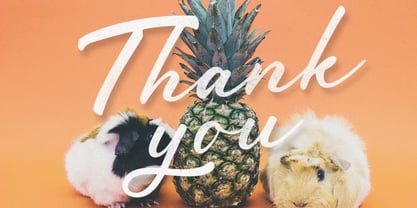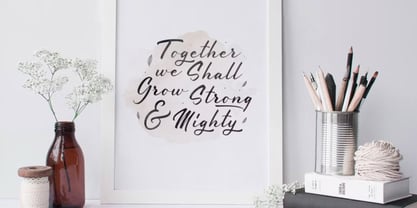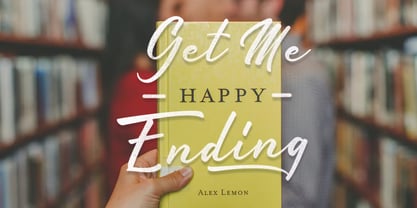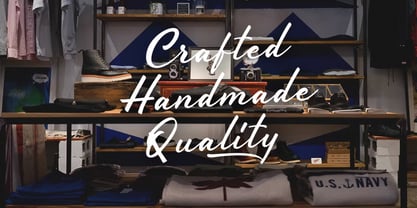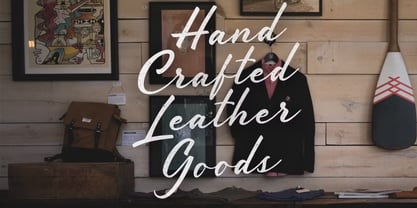
Society
by Maghrib Type
The Society Font Family was designed by Rizky Setyaludin and published by Maghrib Type. Society contains 1 styles.
Elevate your designs with The Society, a premium hand-drawn typeface that strikes the perfect balance between raw authenticity and sophisticated elegance. Inspired by traditional brush lettering and modern lifestyle branding, this font captures the essence of "crafted quality" in every stroke. The Society features a natural, fluid flow with subtle texture variations that mimic real ink on paper. Its rhythmic weight and organic ligatures make it an ideal choice for brands that want to convey a sense of heritage, craftsmanship, and personal touch. Whether you are designing a high-end leather goods brand, a boutique storefront, or a rugged outdoor lifestyle magazine, The Society provides a versatile aesthetic that feels both nostalgic and contemporary. Key Features: Authentic Texture: Carefully preserved hand-drawn edges for a realistic look. Versatile Application: Perfect for logos, apparel design, social media quotes, packaging, and editorial headers. Distinct Character: Bold enough for headlines, yet graceful enough for invitations and branding. Bring a human touch to your digital workspace. Join The Society and let your designs tell a story of craftsmanship and style.
Designers: Rizky Setyaludin
Publisher: Maghrib Type
Foundry: Maghrib Type
Design Owner: Maghrib Type
Society